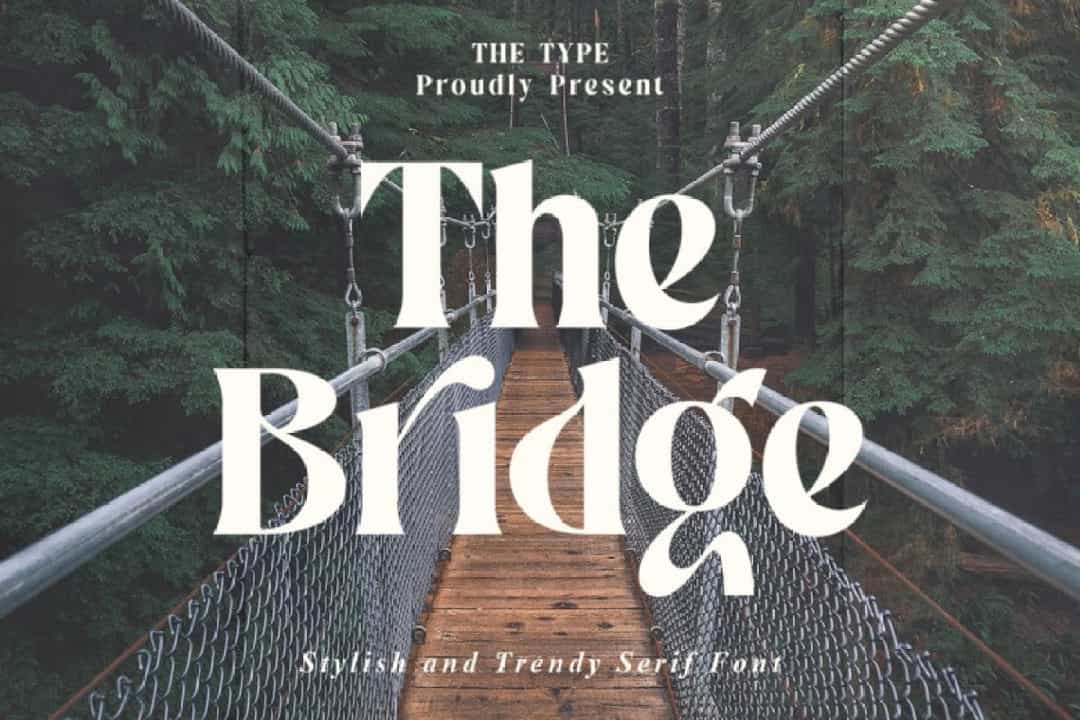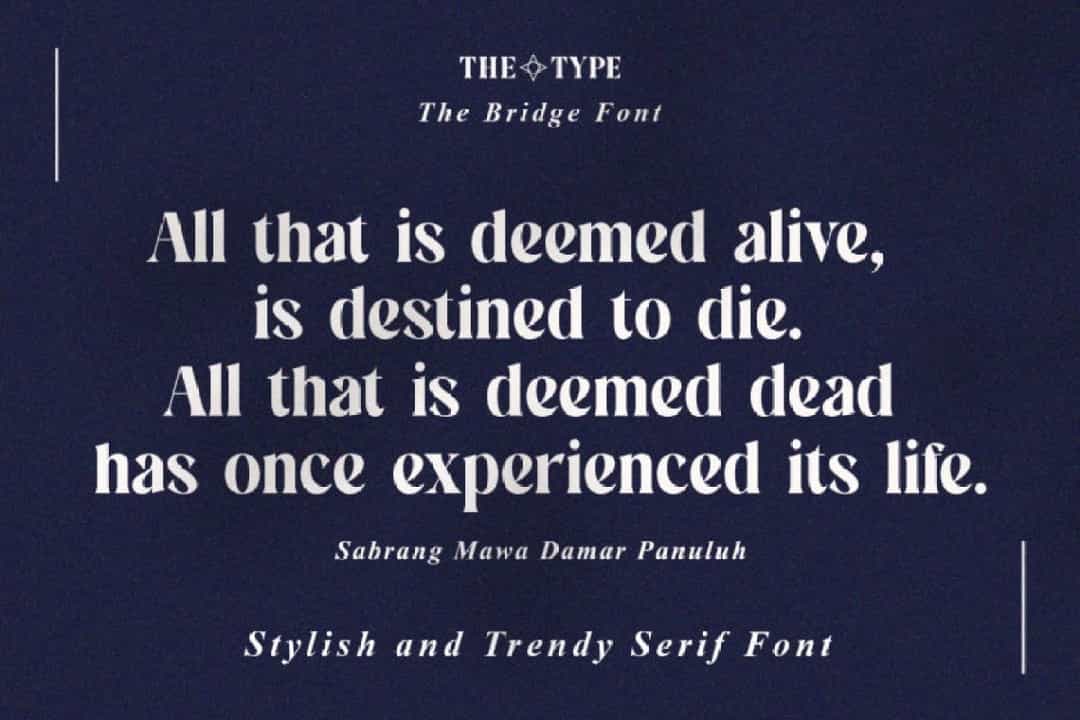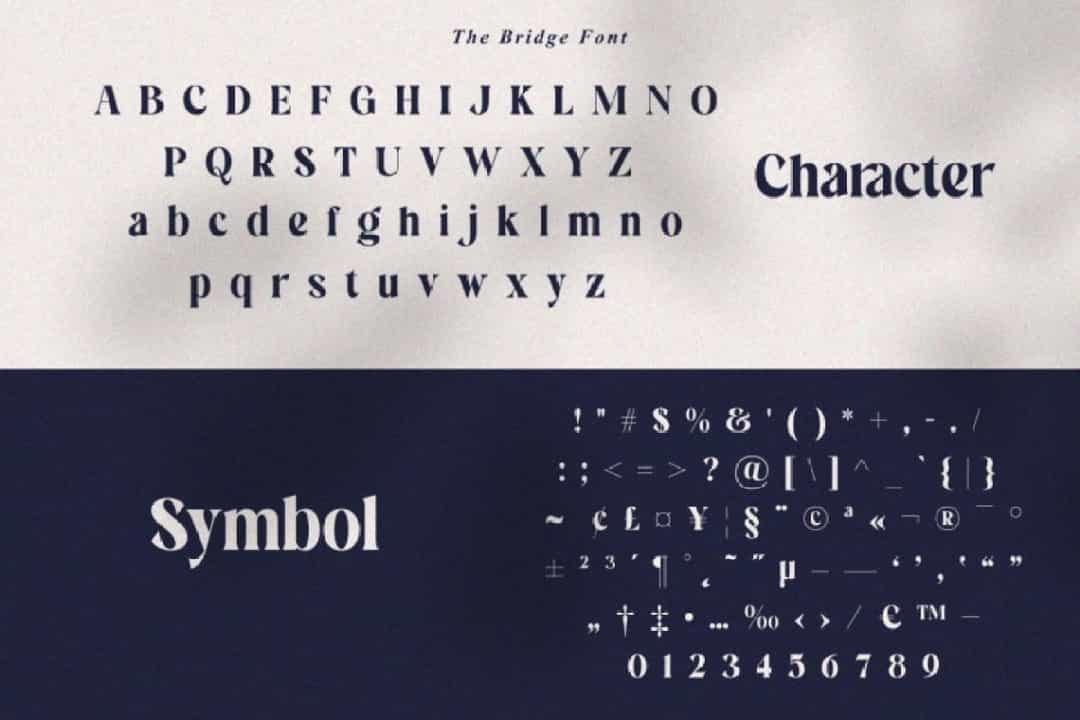
Discover The Bridge Font, part of the Serif Display collection—a versatile and unique font perfect for adding a personal touch to your projects. Download it for free and enjoy crafting designs with style, from invitations to social media posts. This font is available exclusively for personal use, giving you the freedom to create without limits. Unlock your creativity with The Bridge Font today!
The Bridge is a modern font inspired by Stylish Modern Serif, but with more classical (conservative) serif styling. Perfect for text, its use can also add expression, playful elements and modernity through alternative alternatives and ligatures – try playing around with them for maximum impact in your work.